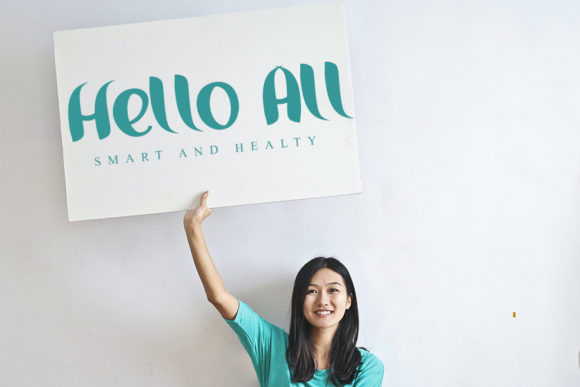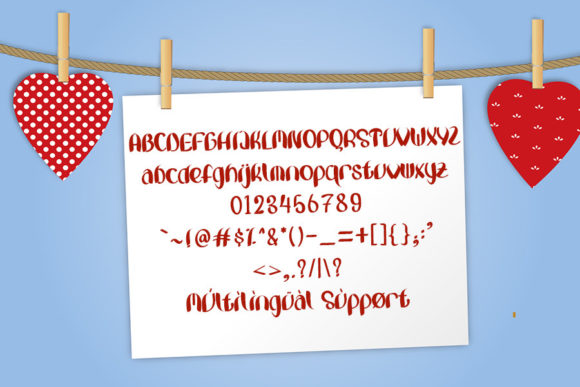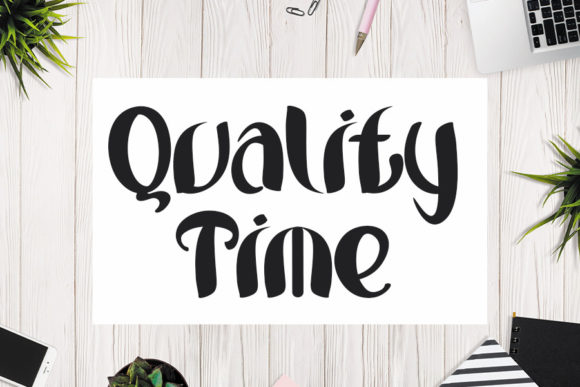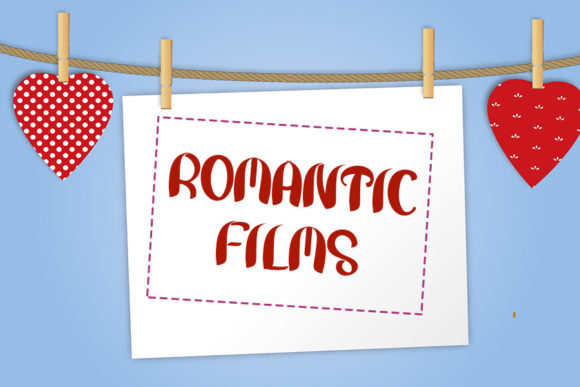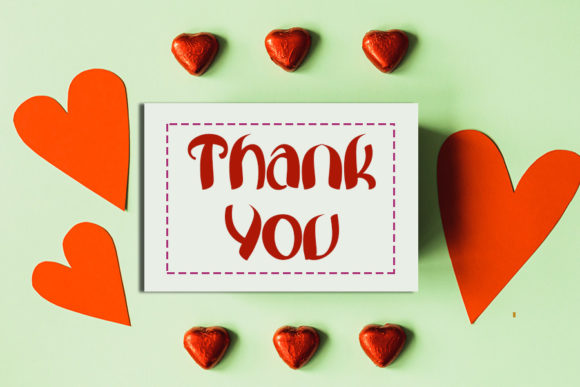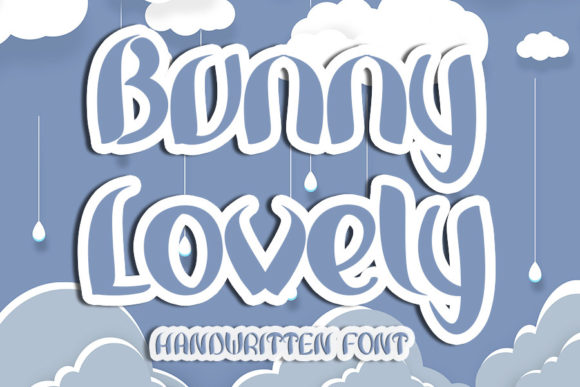
Bunny Lovely Font: The Perfect Addition to Your Design Arsenal
Are you a designer or crafter looking for a unique and elegant font to elevate your designs? Look no further than Bunny Lovely Font! This delicate and sophisticated display font is sure to make your creations stand out from the crowd. In this article, we’ll dive into the features and benefits of Bunny Lovely Font, and explore how you can use it to take your designs to the next level.
What is Bunny Lovely Font?
Bunny Lovely Font is a beautifully crafted display font that boasts distinct and well-rounded letters. Its elegant design makes it perfect for creating stunning visual content, from logos and branding materials to social media graphics and craft projects. Whether you’re a professional designer or a DIY enthusiast, Bunny Lovely Font is sure to inspire your creativity.
Key Features of Bunny Lovely Font
- Delicate and Elegant Design: Bunny Lovely Font features a delicate and sophisticated design that adds a touch of elegance to any project.
- Distinct and Well-Rounded Letters: The font’s distinct and well-rounded letters make it easy to read and recognize, even at small sizes.
- Versatile and Flexible: Bunny Lovely Font can be used for a wide range of design projects, from logos and branding materials to social media graphics and craft projects.
How to Use Bunny Lovely Font
Bunny Lovely Font is incredibly versatile and can be used for a wide range of design projects. Here are a few ideas to get you started:
- Logos and Branding Materials: Use Bunny Lovely Font to create stunning logos, business cards, and other branding materials that will help your business stand out.
- Social Media Graphics: Create eye-catching social media graphics, including Facebook posts, Instagram stories, and Twitter headers, using Bunny Lovely Font.
- Craft Projects: Add a touch of elegance to your craft projects, including handmade cards, gift tags, and scrapbooking pages, with Bunny Lovely Font.
- Web Design: Use Bunny Lovely Font to create beautiful website headers, titles, and other design elements that will elevate your website’s design.
Benefits of Using Bunny Lovely Font
There are many benefits to using Bunny Lovely Font in your designs. Here are a few:
- Unique and Eye-Catching: Bunny Lovely Font is a unique and eye-catching font that will help your designs stand out from the crowd.
- Elegant and Sophisticated: The font’s elegant and sophisticated design makes it perfect for creating high-end designs that exude luxury and style.
- Easy to Read: Bunny Lovely Font is easy to read, even at small sizes, making it perfect for use in a wide range of design projects.
- Versatile: The font’s versatility makes it perfect for use in a wide range of design projects, from logos and branding materials to social media graphics and craft projects.
In conclusion, Bunny Lovely Font is a beautiful and elegant display font that is perfect for designers and crafters looking to elevate their designs. Its delicate and sophisticated design, distinct and well-rounded letters, and versatility make it a valuable addition to any design arsenal. Whether you’re creating logos and branding materials, social media graphics, craft projects, or web design elements, Bunny Lovely Font is sure to inspire your creativity and help you create stunning visual content.